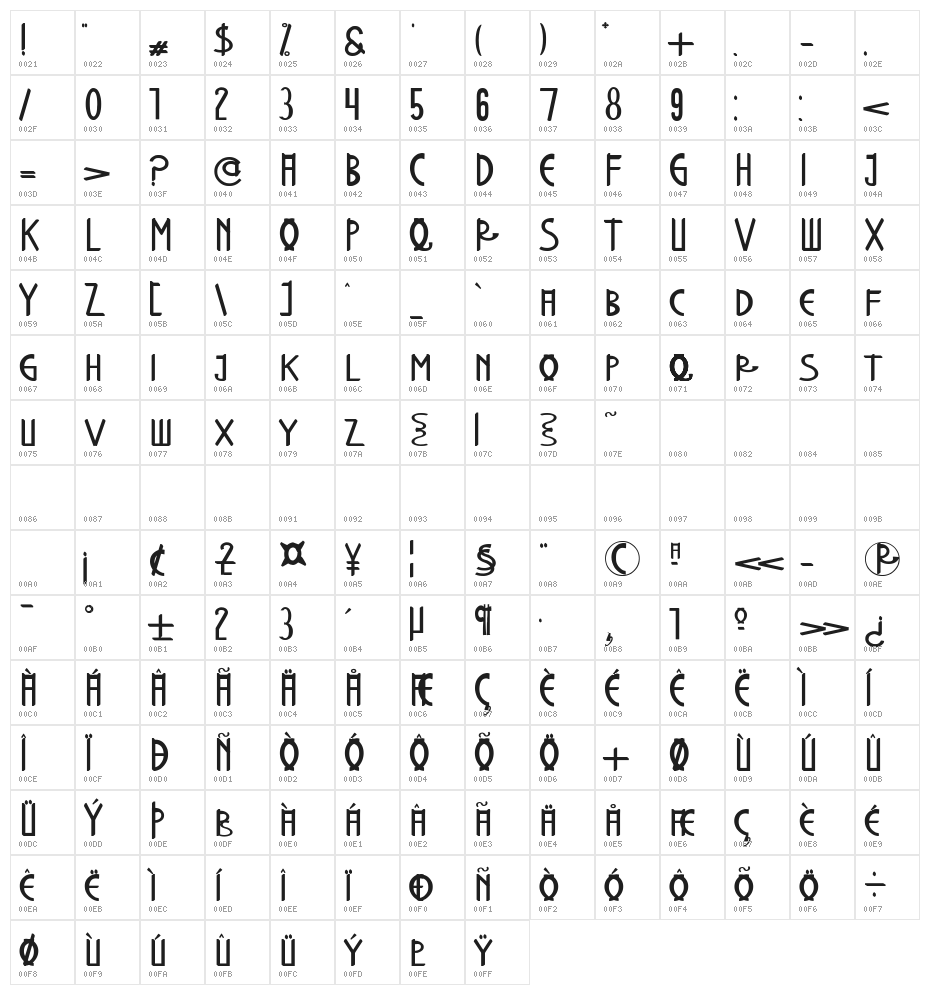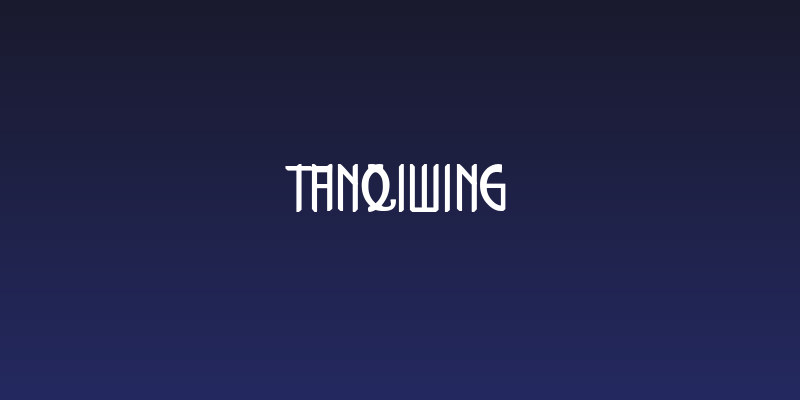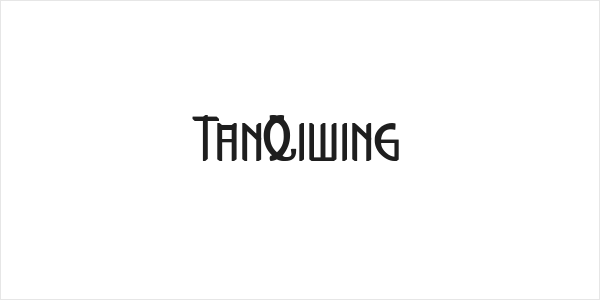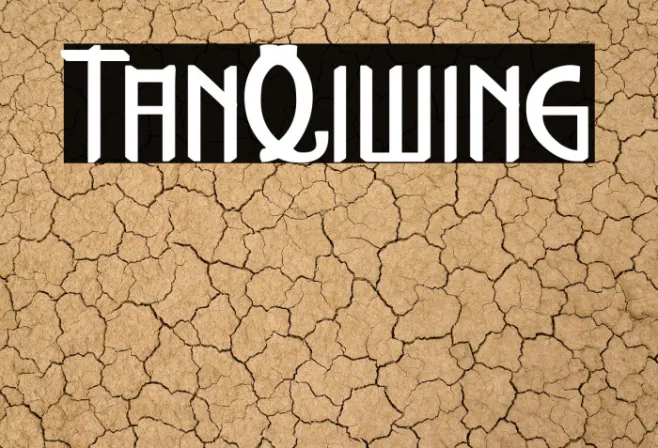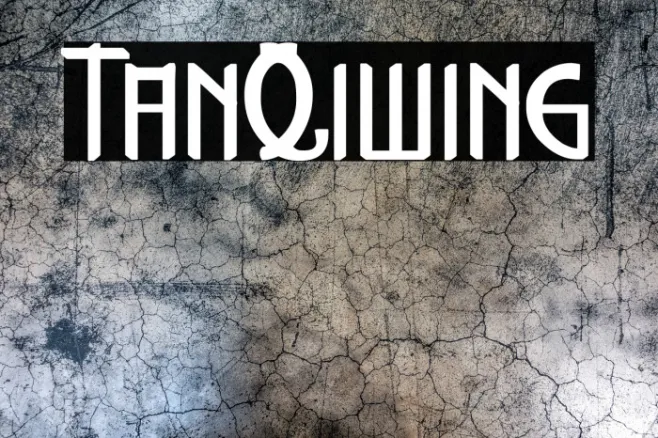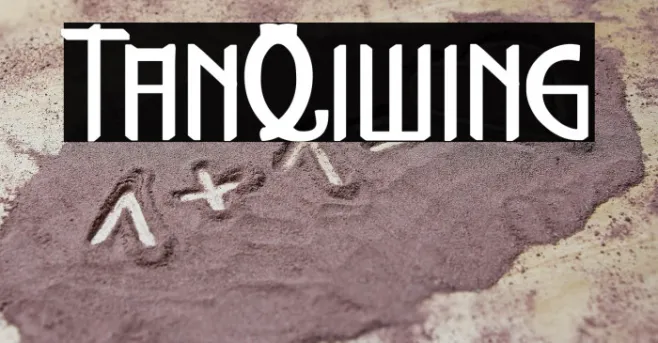
TanQiwing Font
TanQiwing Description
This font features a unique blend of geometric and modern elements, characterized by its tall, narrow letters with sharp angles and clean lines. The uppercase letters exhibit a consistent height, while the lowercase letters maintain a similar style, creating a cohesive look. The numerals are distinct and align well with the overall design, offering a modern touch. Special characters are crafted with precision, adding to the font's versatility. The overall appearance is sleek and contemporary, making it suitable for a variety of design applications.